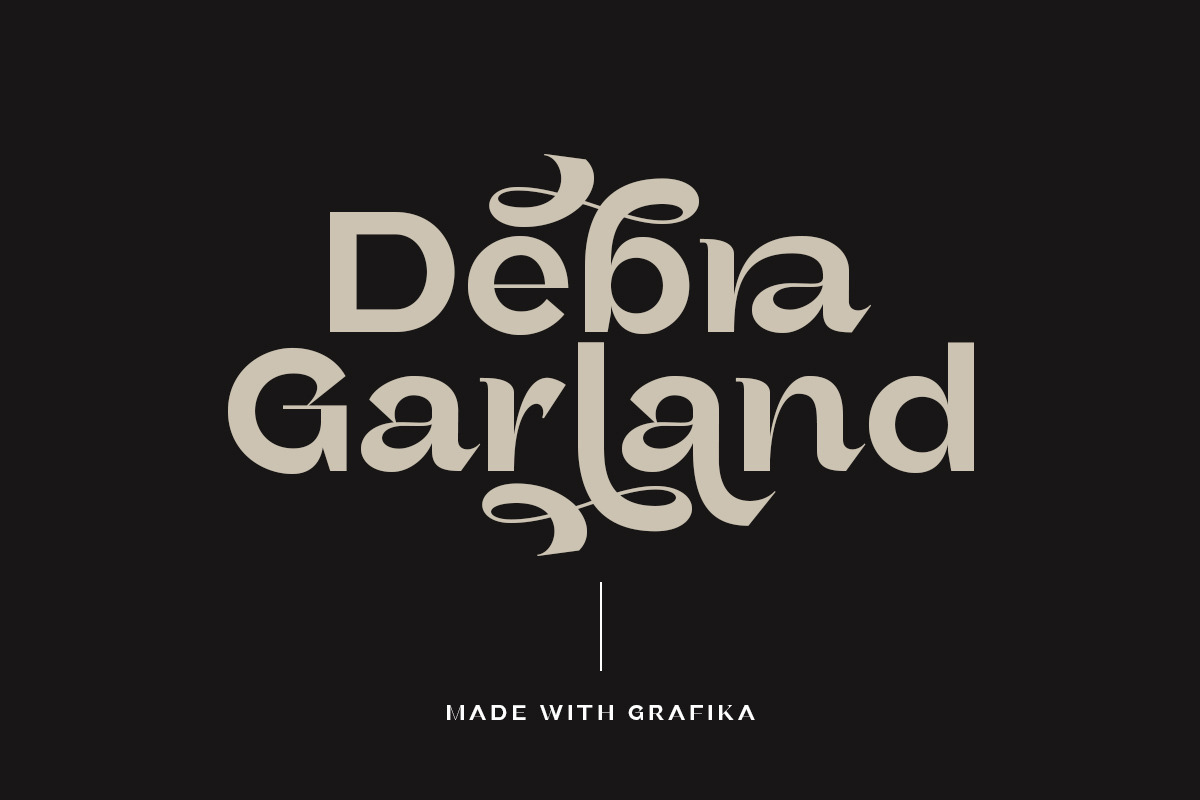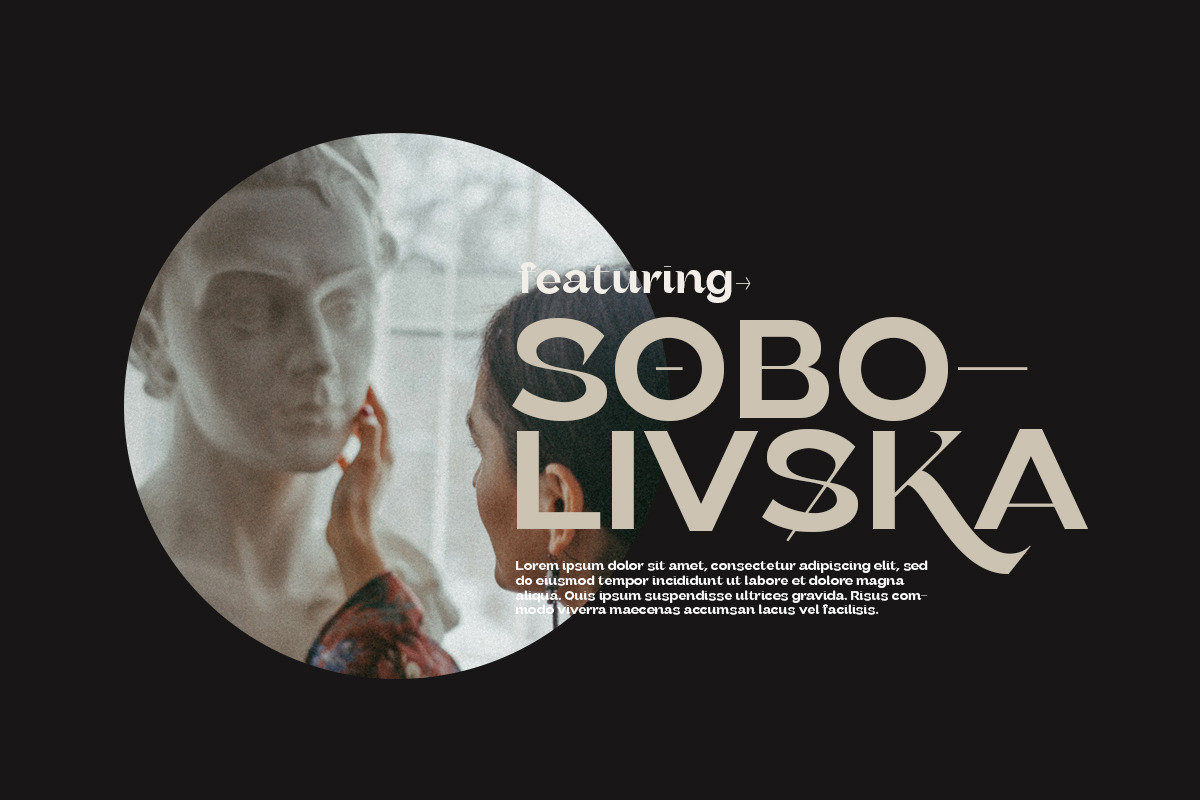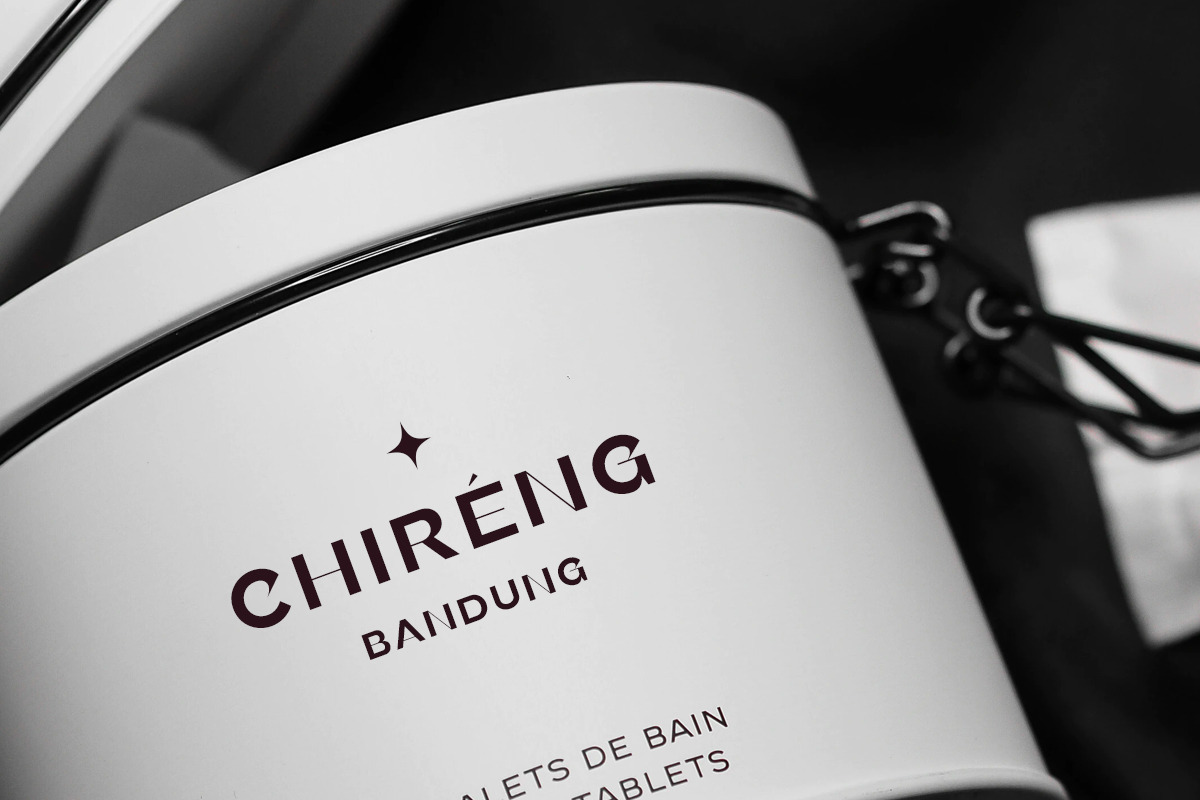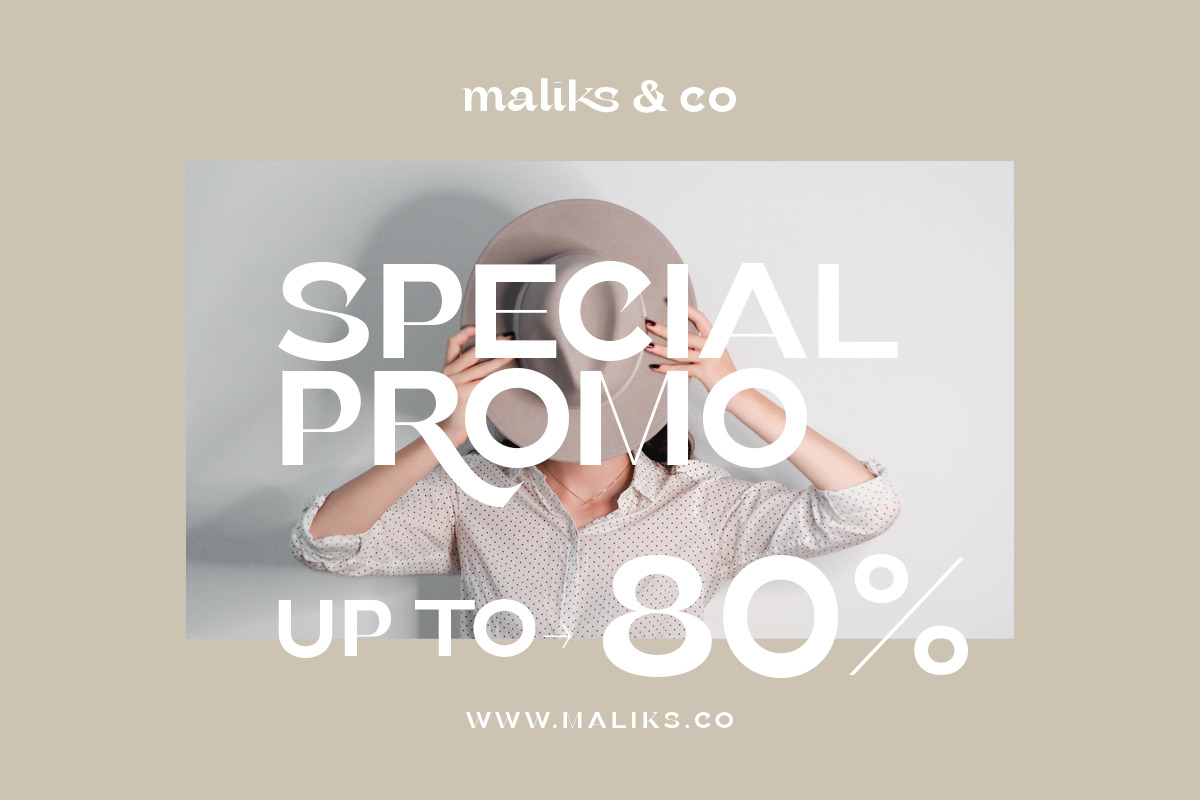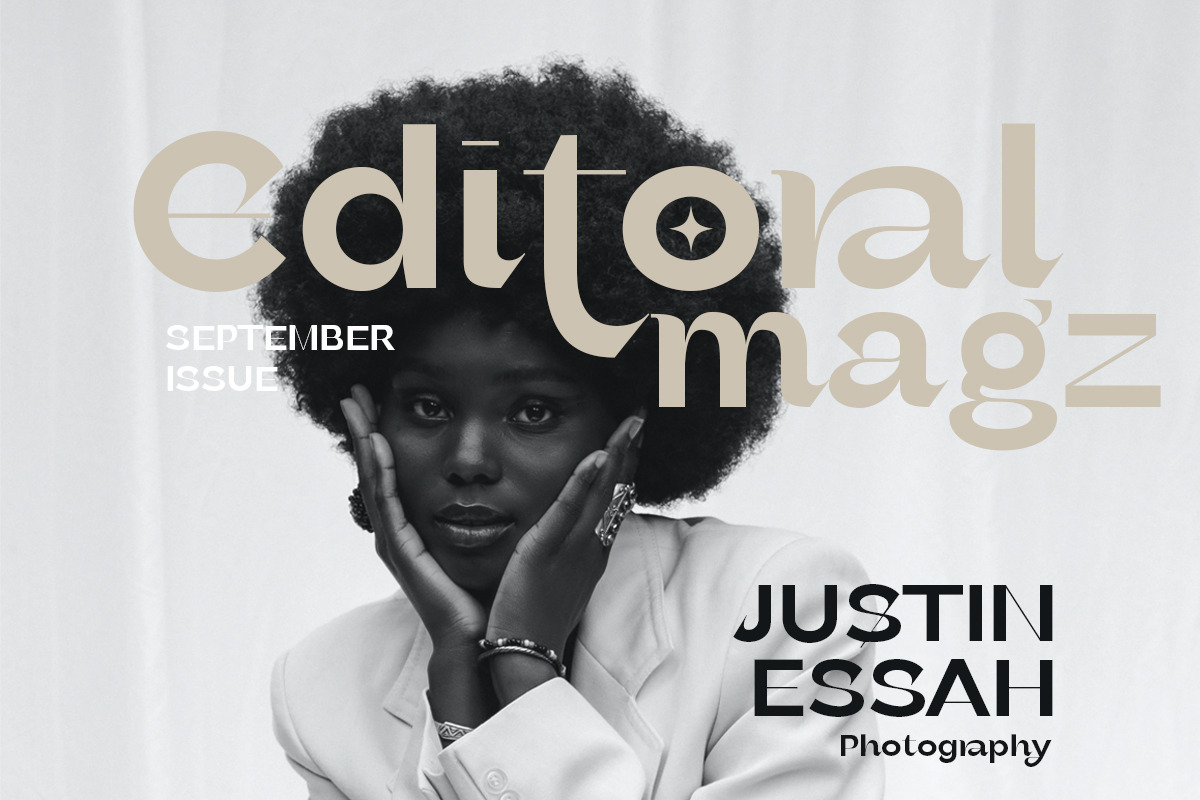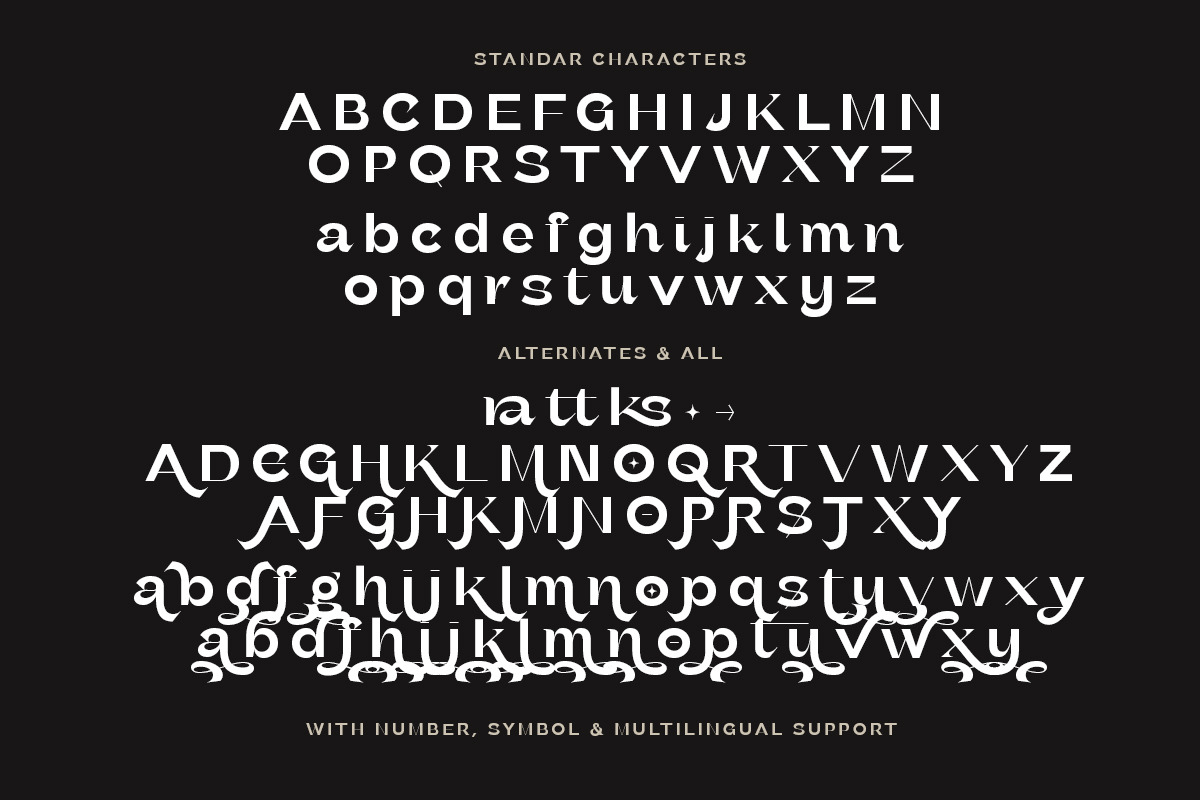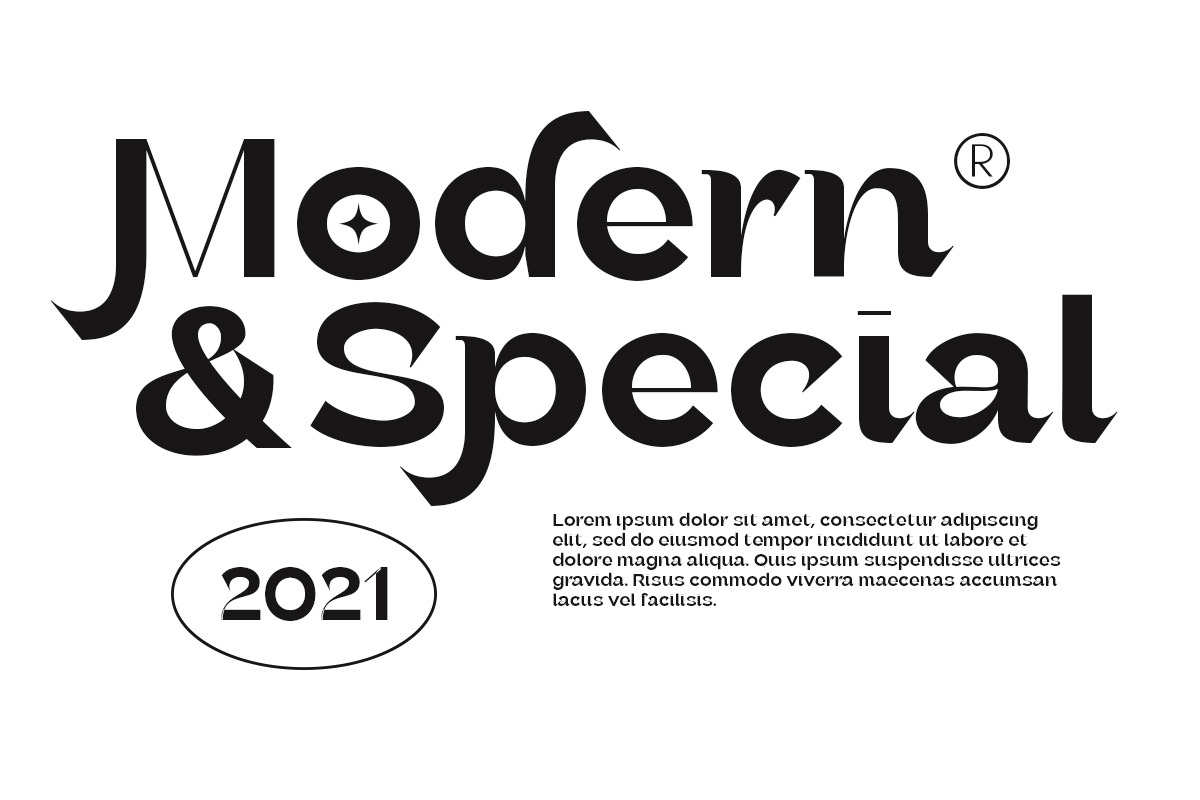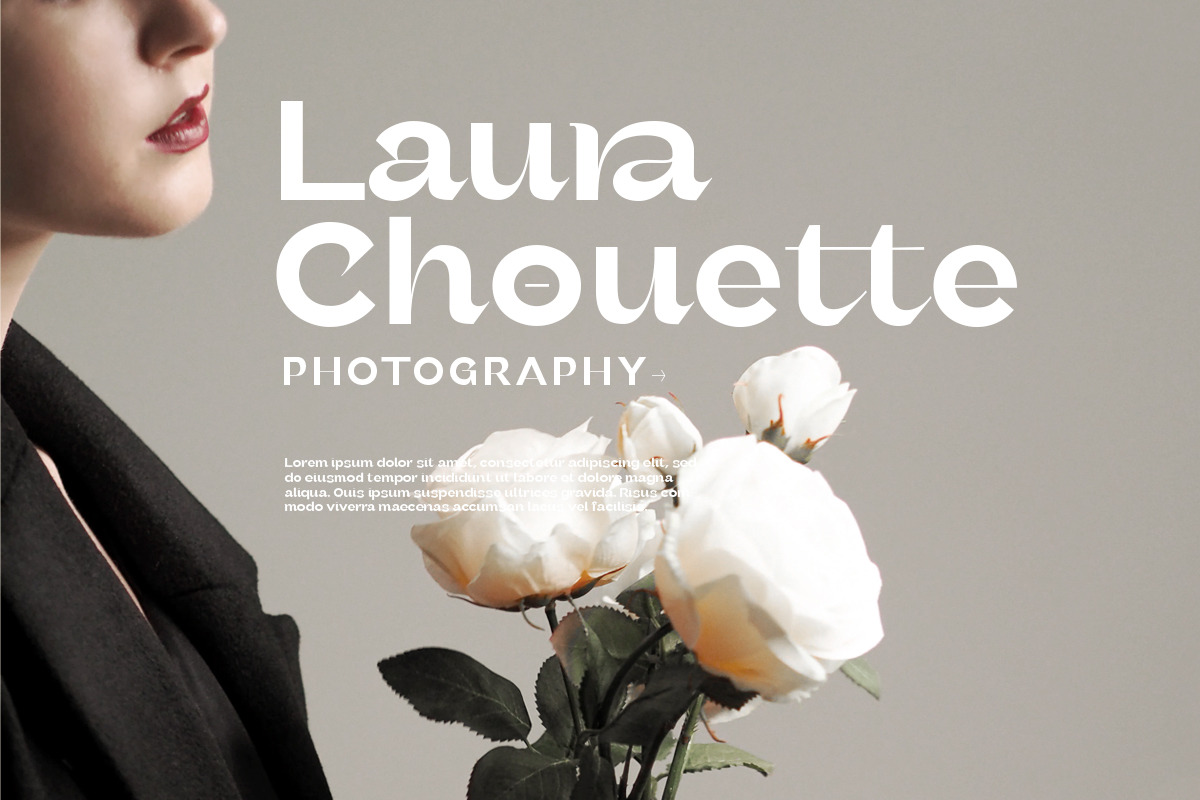
Grafika - Modern Sans
Introducing, Grafika - a modern sans with ligatures and alternates!
Grafika is a modern sans with a bunch of ligatures and alternates that will make your poster, cover or logo even more stunning and stand out! You can use this font as a stand alone font for any project such as logo, headline or branding. Also comes with the right arrow and star! This fonts support Multi Language.